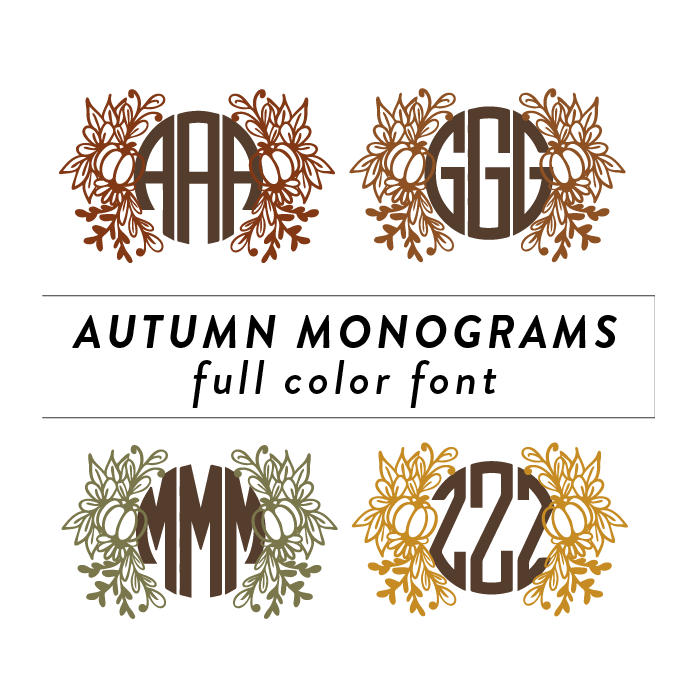
Autumn Monograms Full Color Font is a vibrant and detailed font design perfect for adding a touch of autumnal charm to any project. With mix and match monogram, font allows you to create custom fall decor and paper crafts.